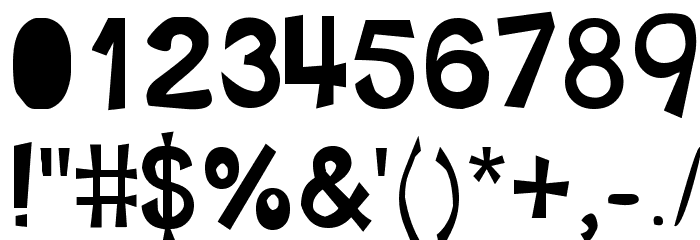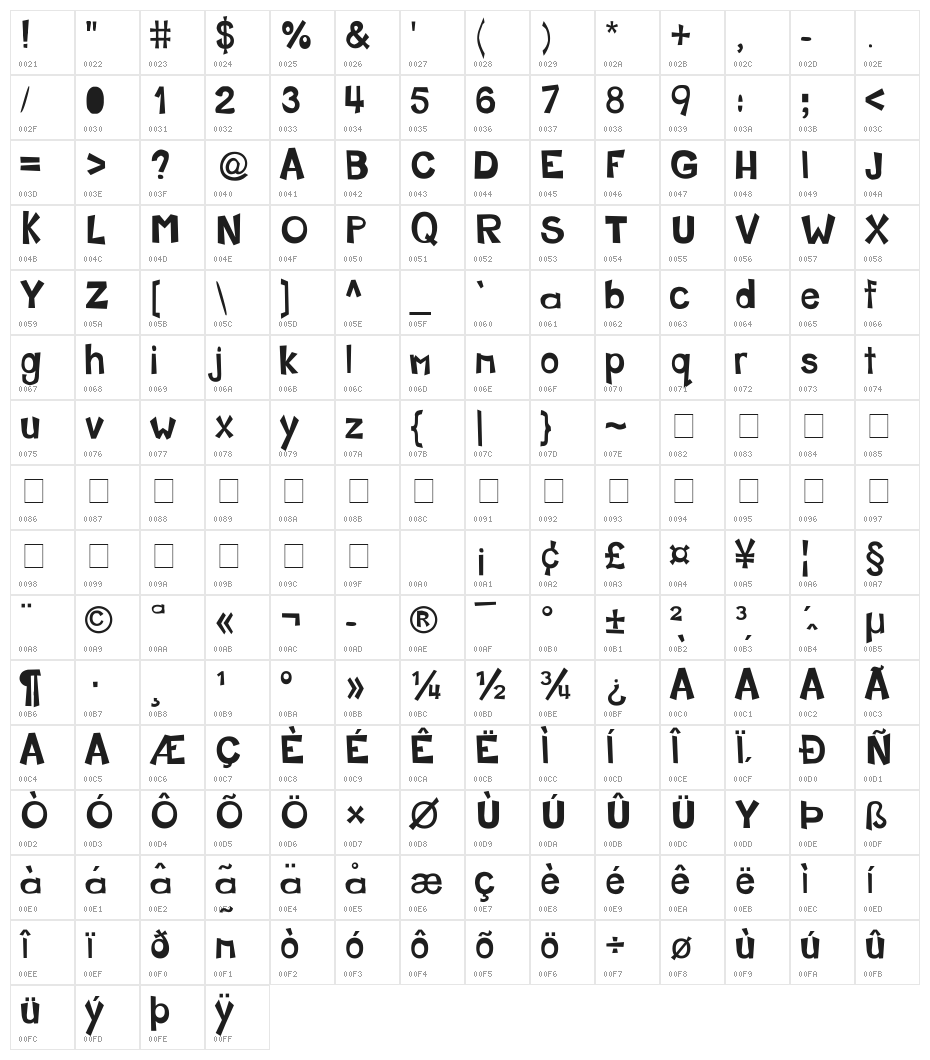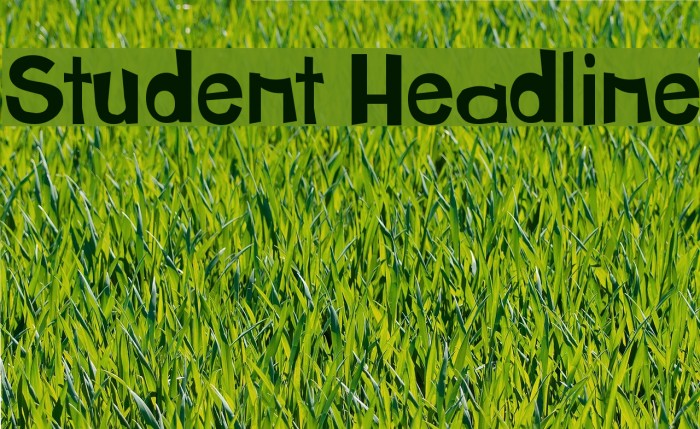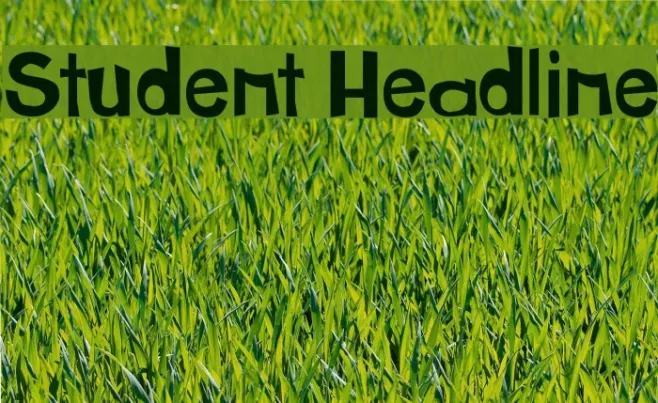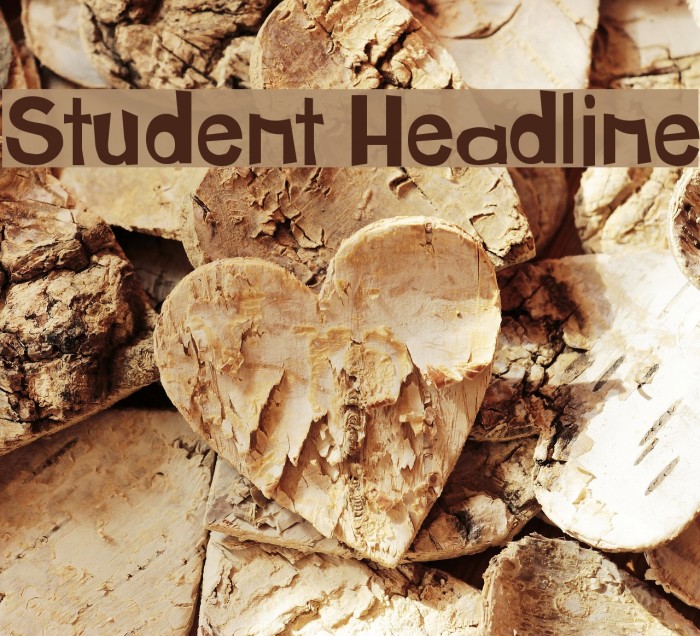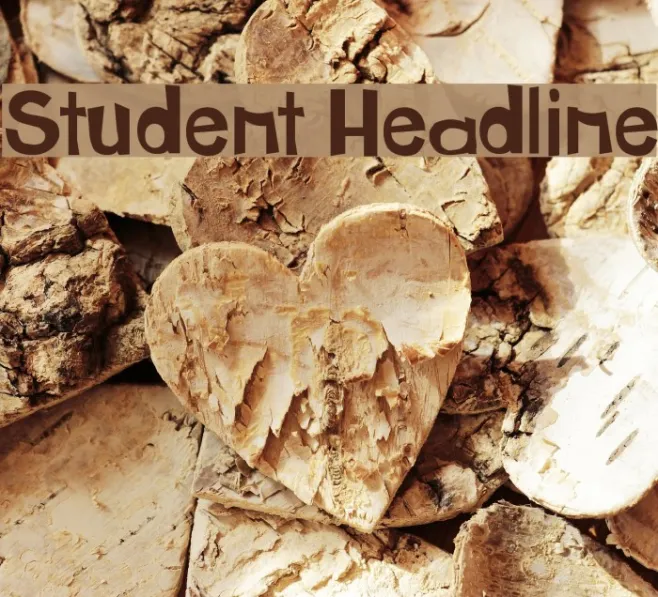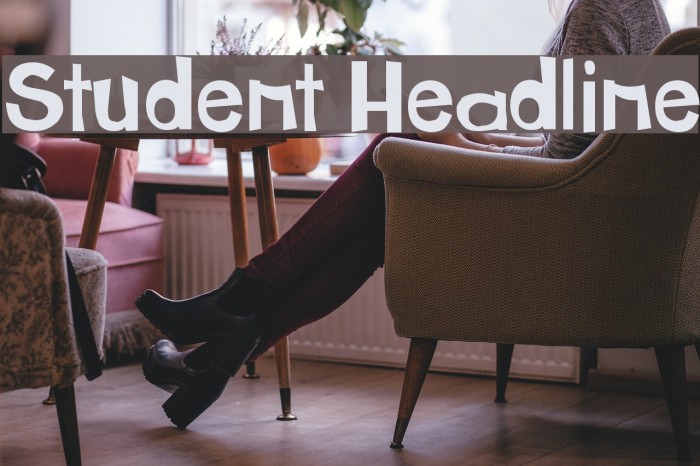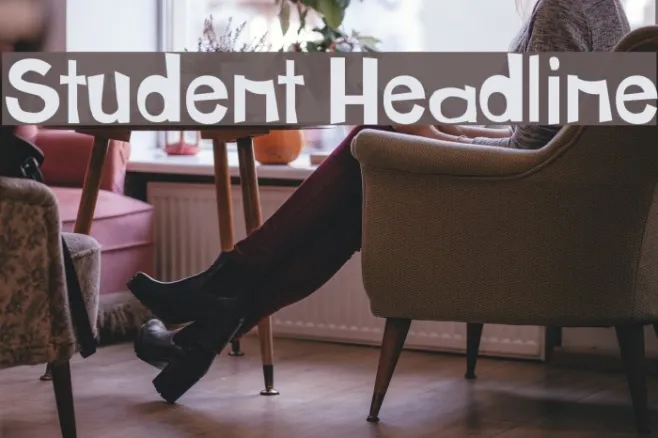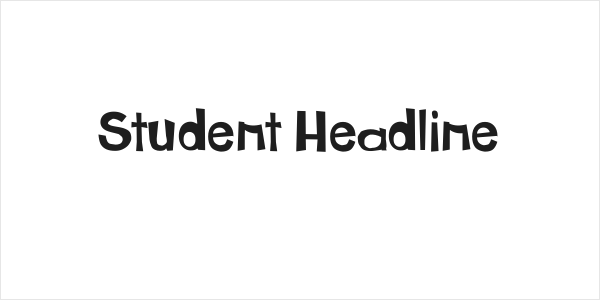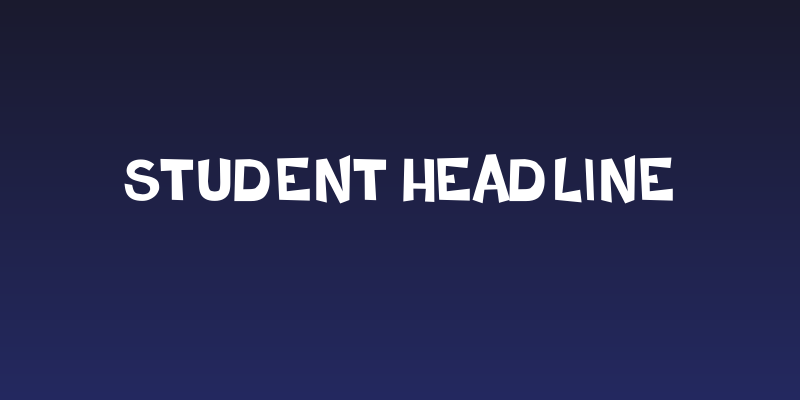
Student Headline Font
Student Headline Description
This font features a playful and bold style with a distinctively quirky character design. The uppercase letters are robust and slightly irregular, giving them a hand-drawn appearance. Lowercase letters maintain this whimsical style, with some characters exhibiting unique curves and angles. The numerals are bold and consistent with the overall playful theme. Special characters are creatively designed, adding to the font's charm. This font is highly legible and stands out due to its boldness and unique character shapes.
| Overall Style | Playful, Quirky, Hand-drawn |
| Proposed Projects | Ideal for children's books, playful branding, posters, and creative projects that require a fun and engaging typeface. |